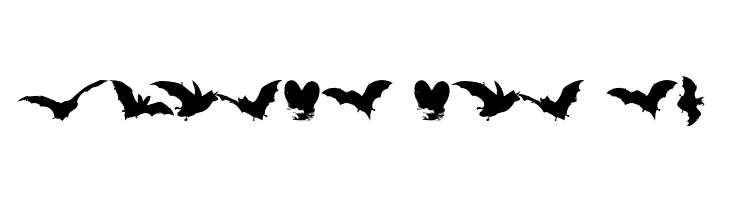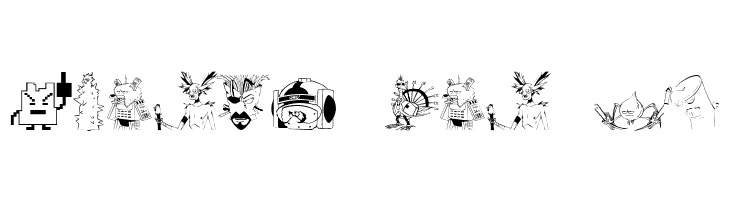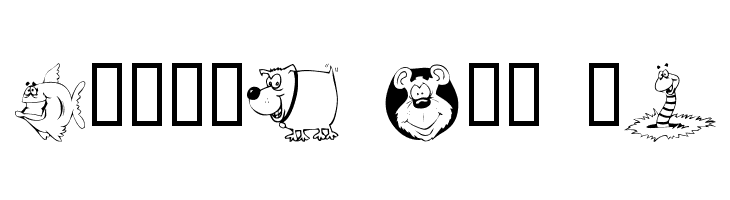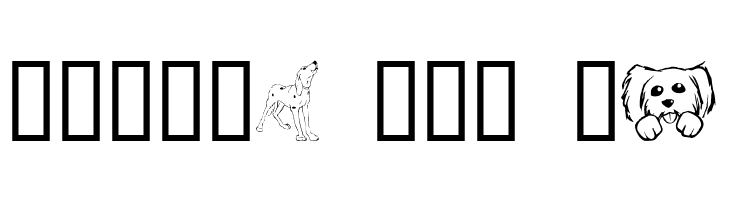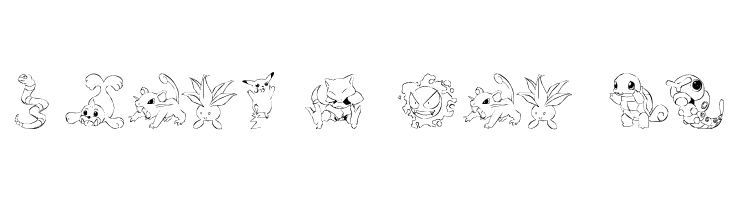
A decorative font featuring unique bat silhouettes for each character.
A whimsical decorative font with cartoon-style characters and animals.
A decorative font with playful dog illustrations replacing traditional characters.
( Fonts by Rodrigo German - RASDESIGN )
The image features hand-drawn illustrations, not a standard font.